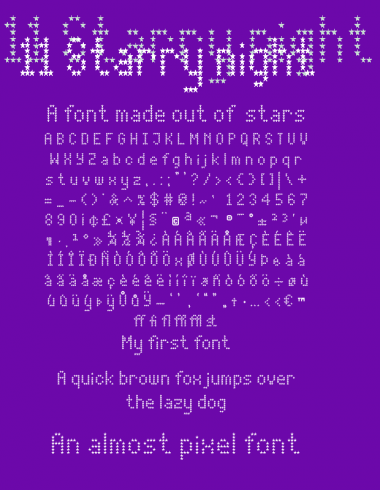
It's good for a first font! It looks quite nice at pixel size.
Very nice work - especially for a first font. 10/10
@winty: Thank you. I agree about the pixel size looking nice.
I love it.